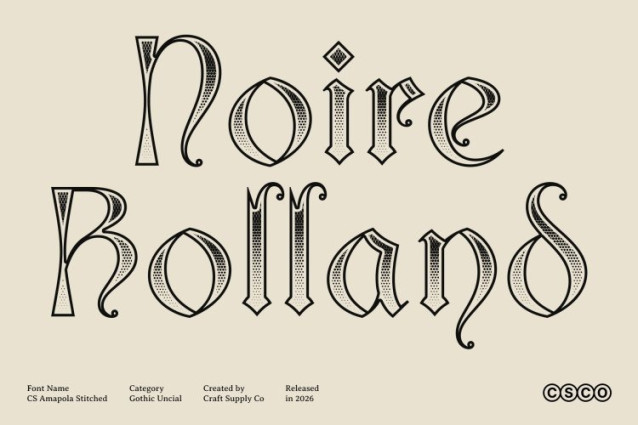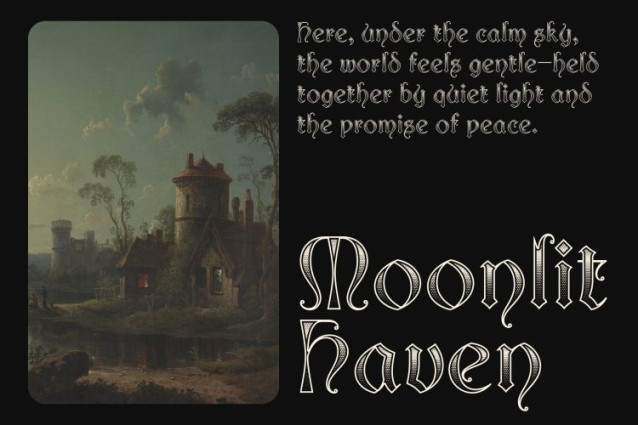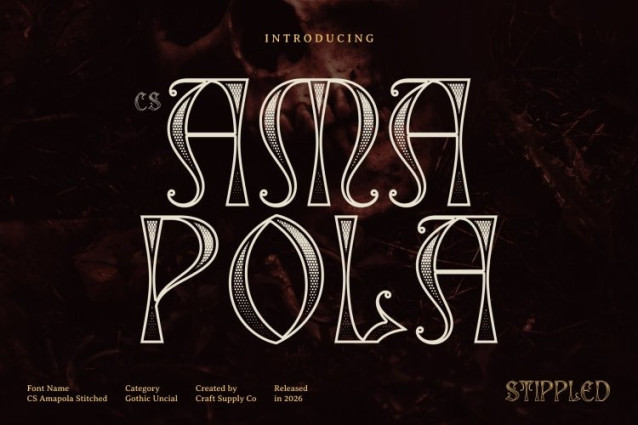
CS Amapola Stippled Font
CS Amapola Stippled Font This is a display font that harmoniously blends the smooth, rounded curves of uncial lettering with the bold authority of Gothic style now elevated with a dense stippled texture. Inspired by traditional ink-dot and stippling illustration techniques, the dotwork surface adds artistic richness and a handcrafted, vintage character. The result is a typeface that feels historical, expressive, and visually captivating.
Antique Atmosphere with Textured Elegance
Each letterform features flowing uncial strokes enhanced by subtle Gothic structure, creating a balance between softness and strength. The stippled detailing deepens the antique impression, evoking medieval manuscripts, engraved texts, and ancient calligraphy. This textured treatment reinforces its sense of tradition while maintaining clarity and refined presentation.
Perfect for Historical and Fantasy Themes
This font is ideal for fantasy book covers, medieval-themed posters, vintage-inspired logos, and decorative design projects. Its stippled finish enhances the feeling of age, craftsmanship, and storytelling making it especially suitable for role-playing games, historical branding, editorial titles, and immersive visual narratives.
Distinctive, Versatile, and Rich in Character
With its intricate curves, formal presence, and textured surface, this font carries a strong visual identity rooted in old-world elegance. The blend of Gothic Uncial structure and stippled artistry creates a timeless yet adaptable font perfect for designers seeking depth, authenticity, and a touch of historical mystique with modern refinement.